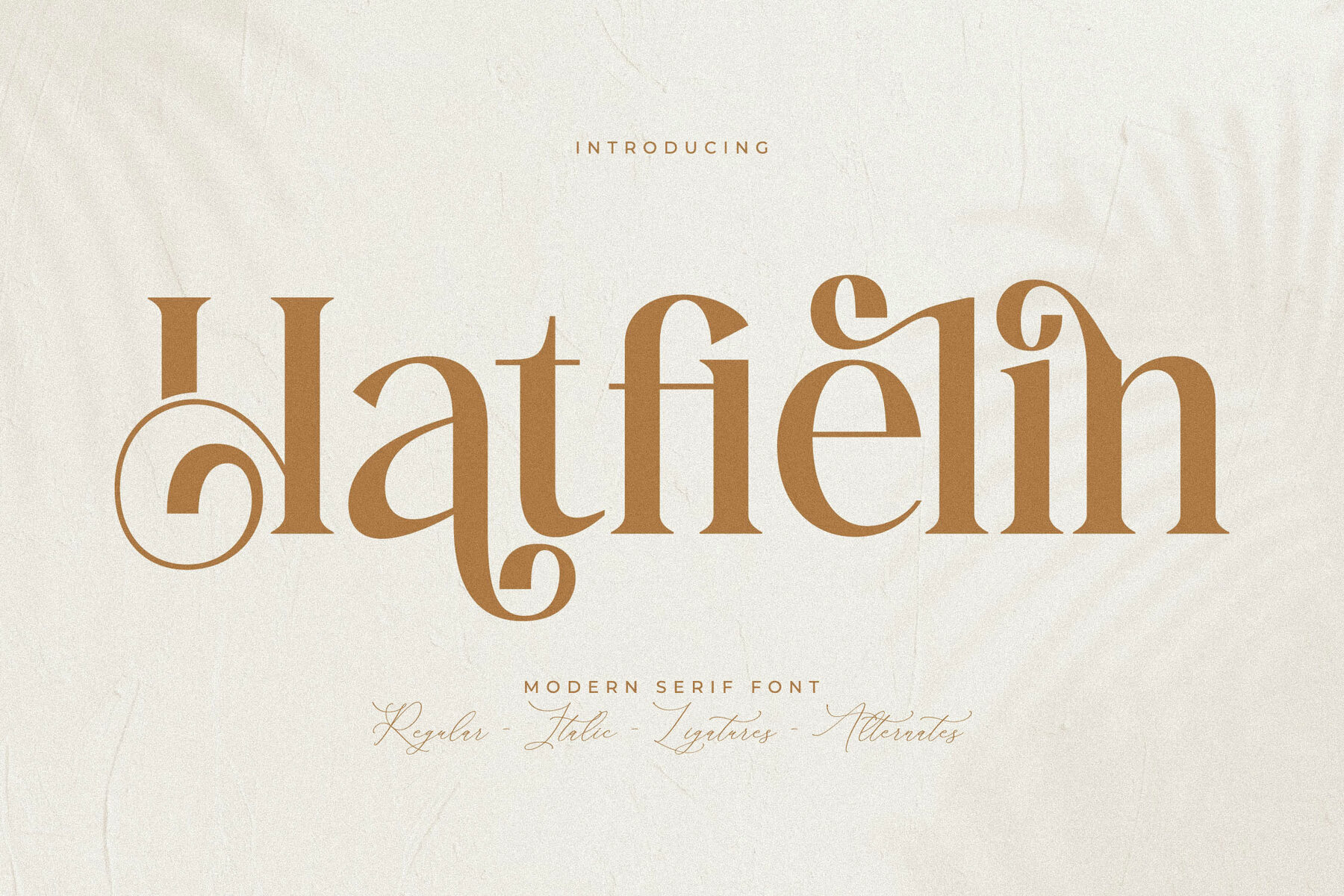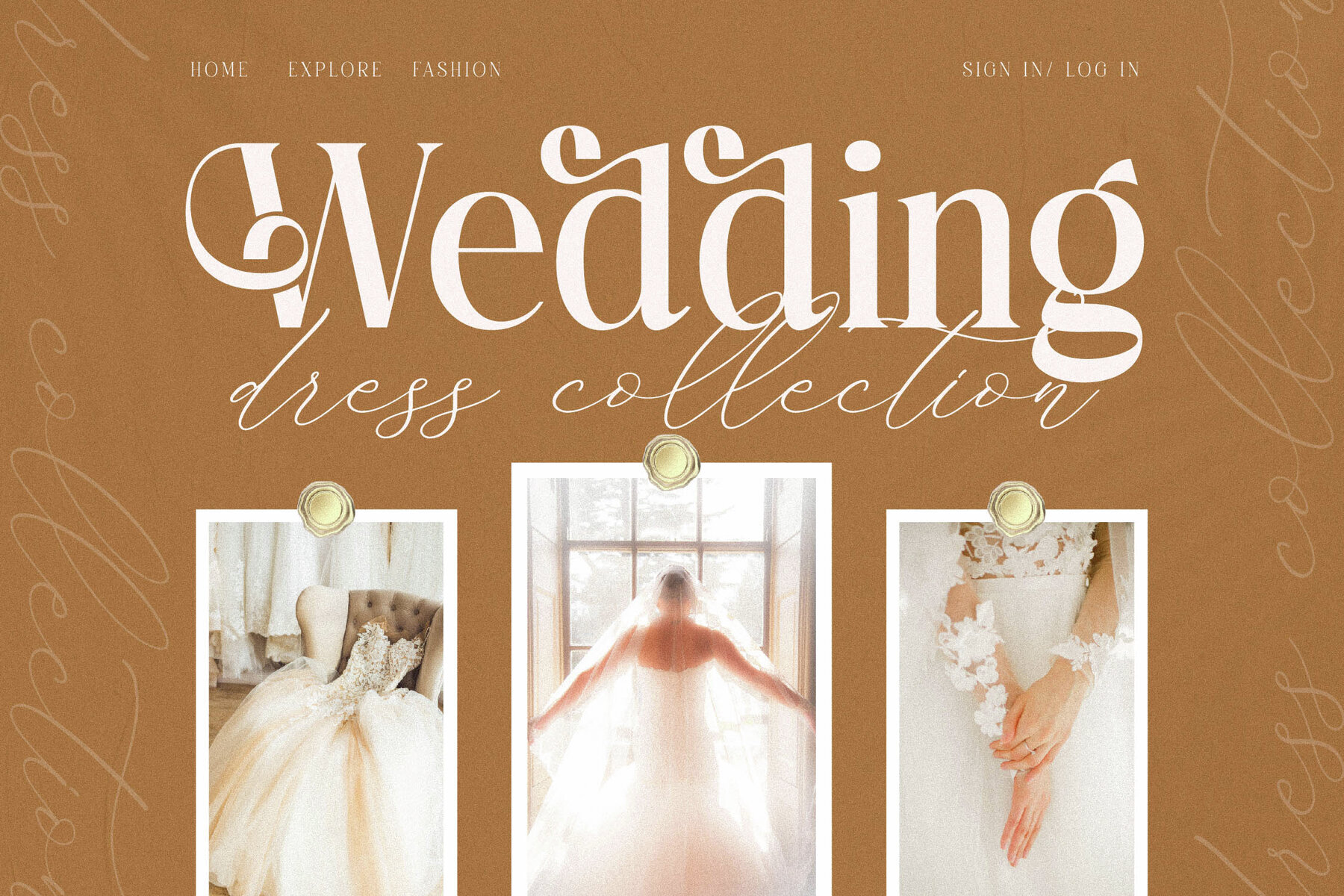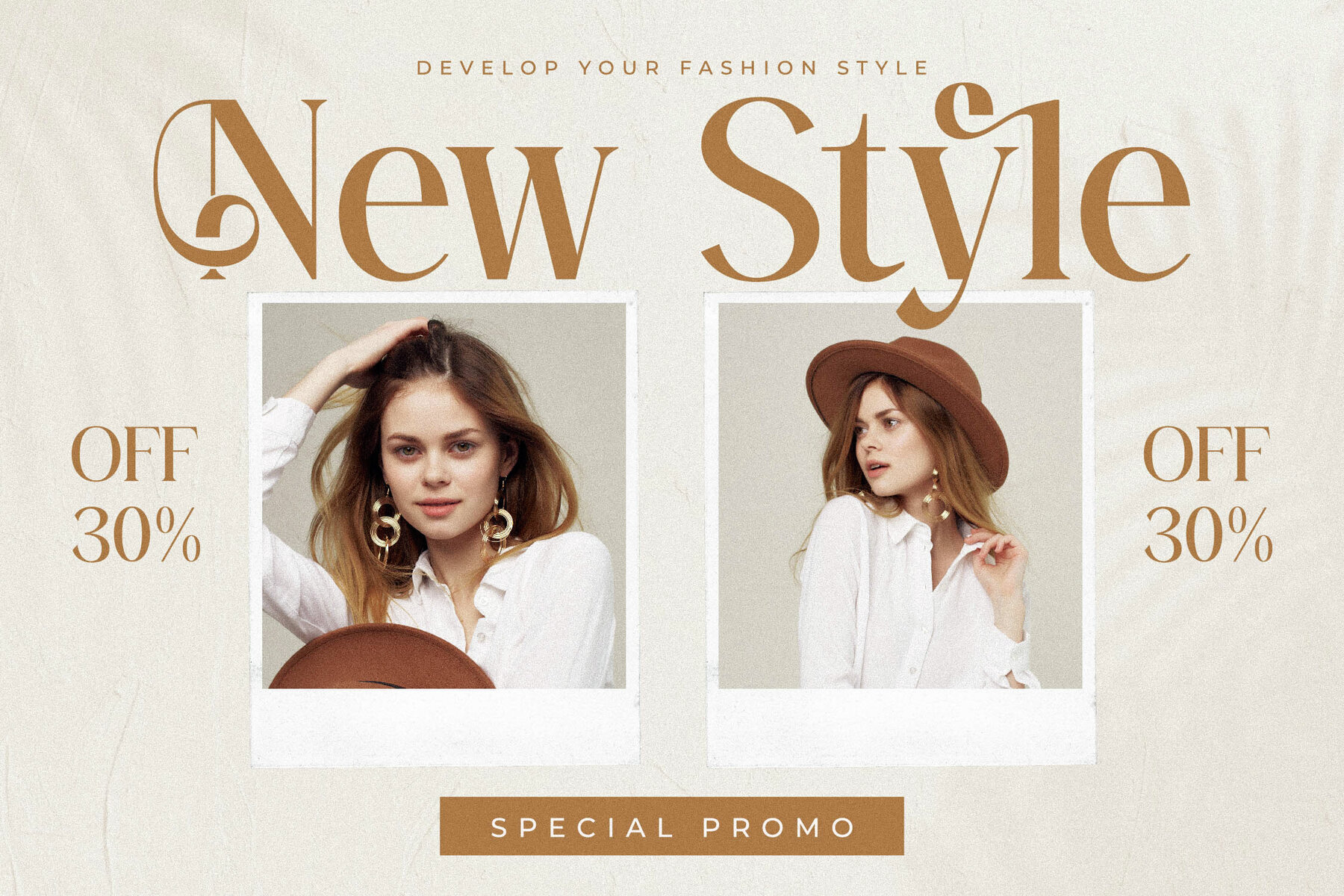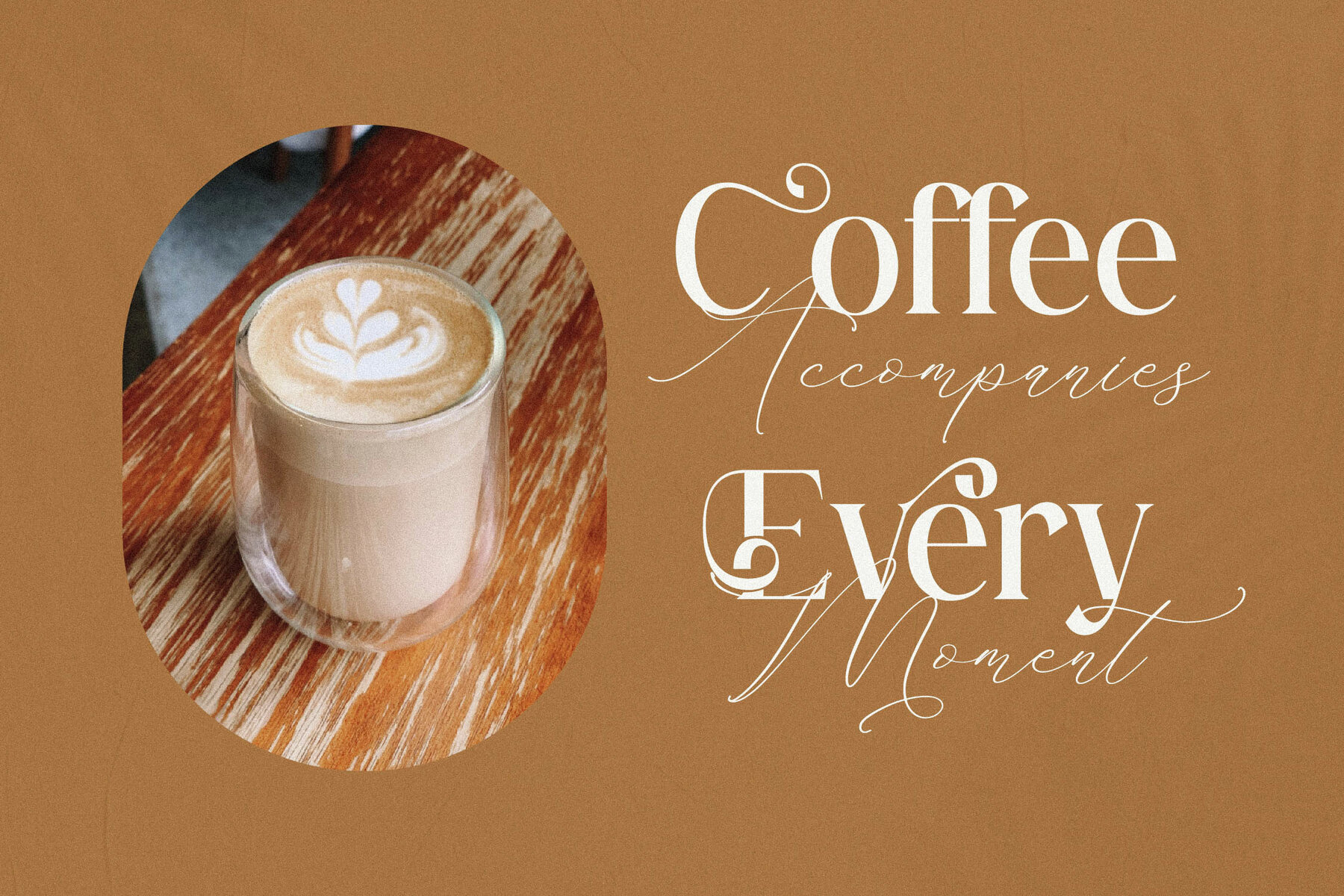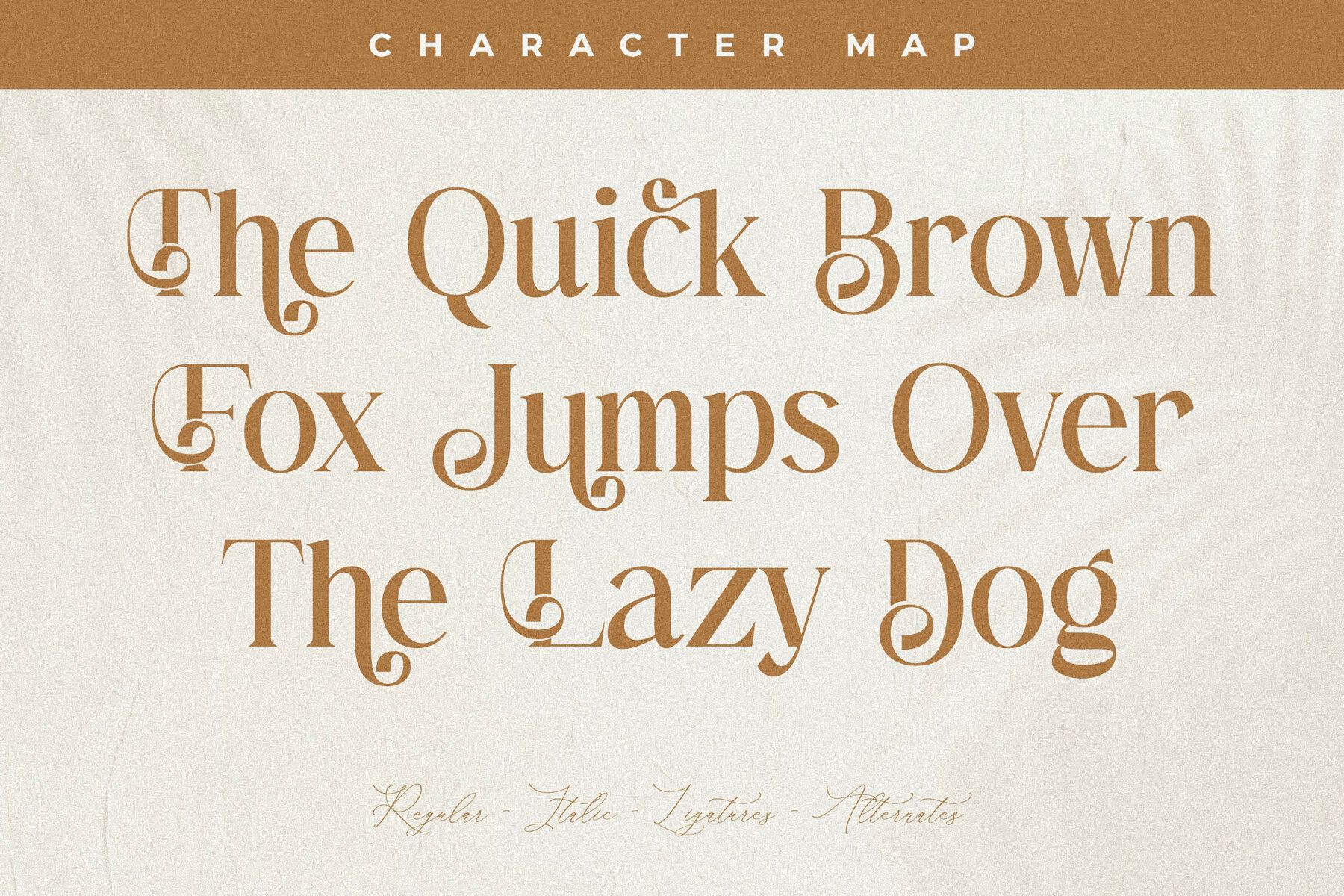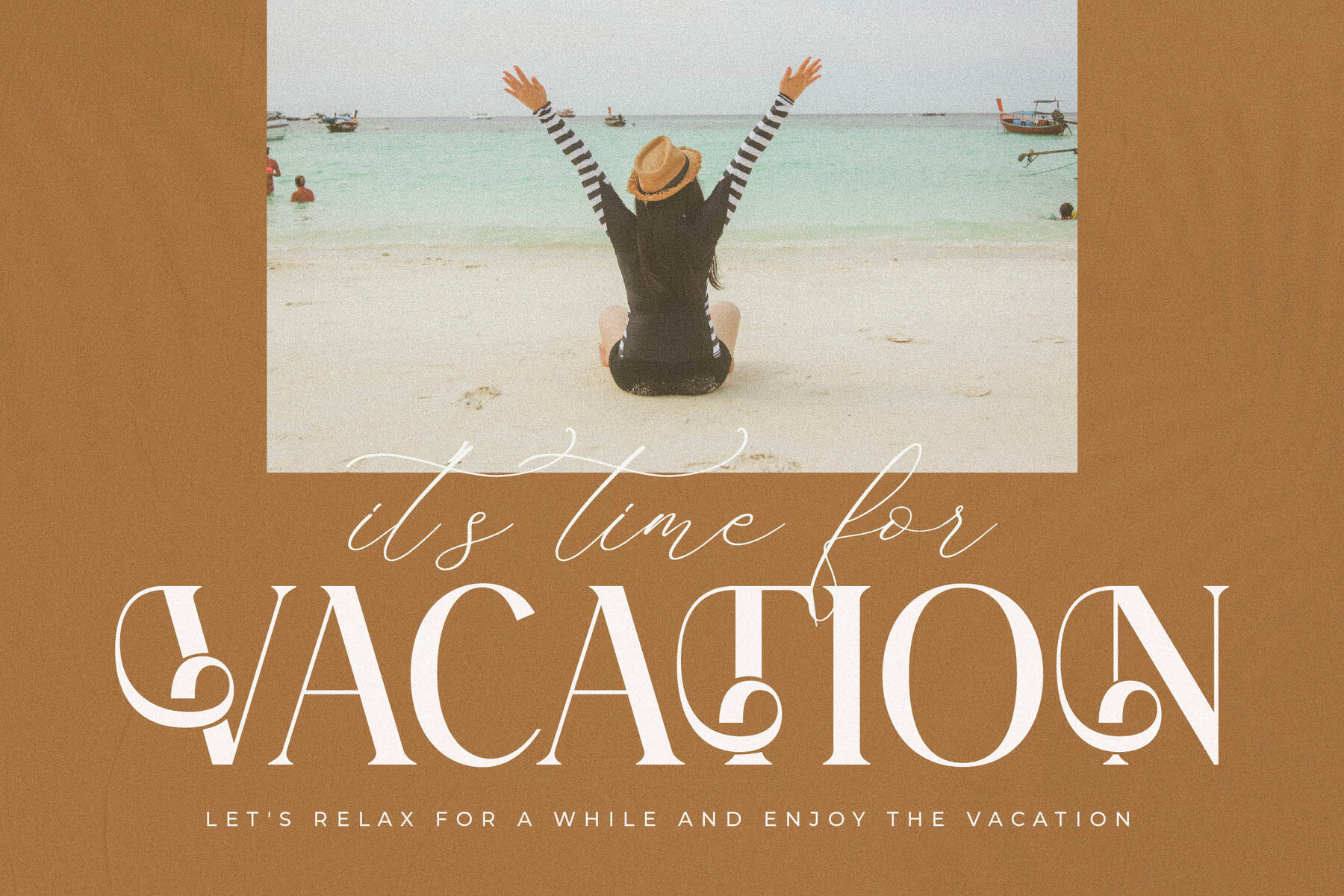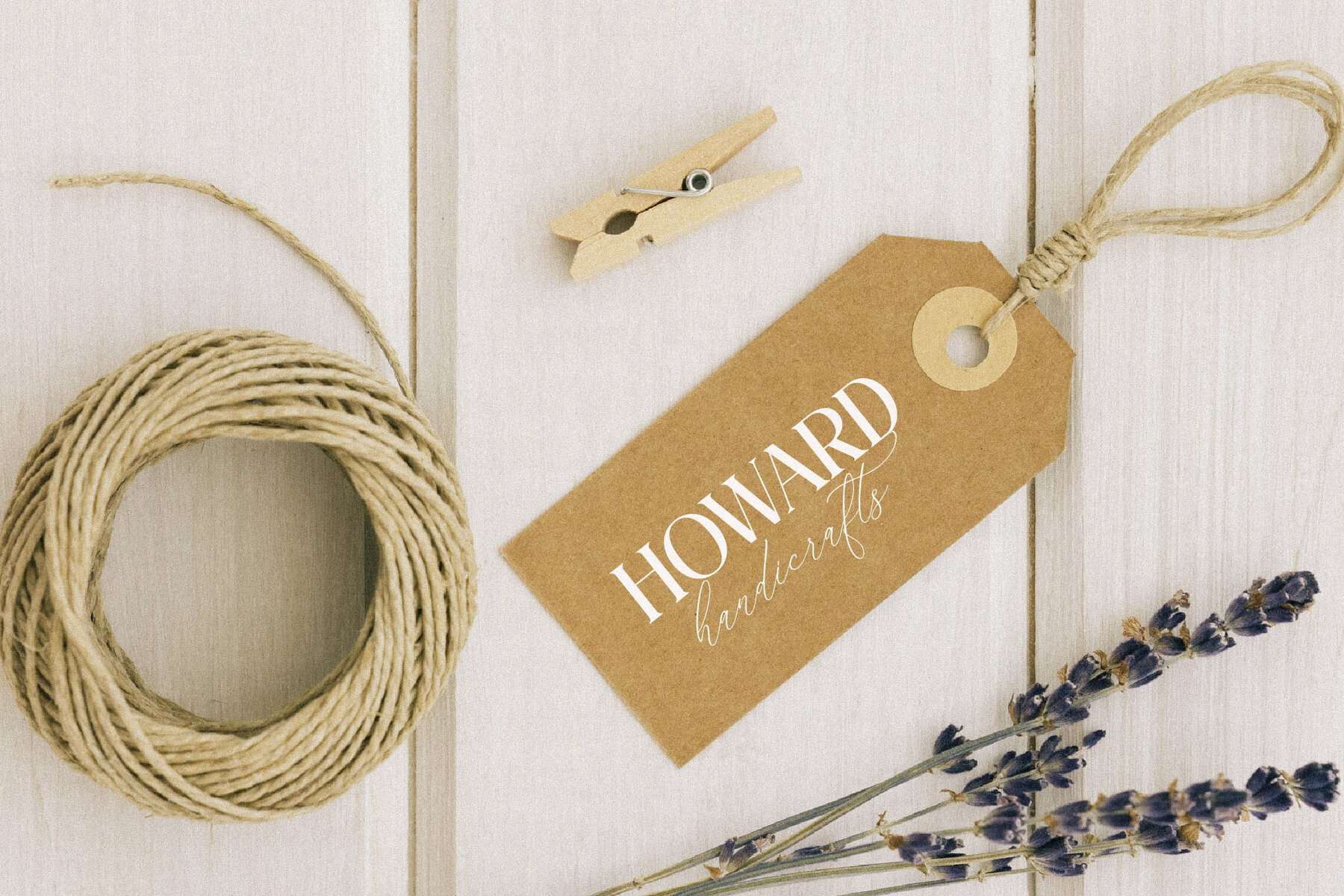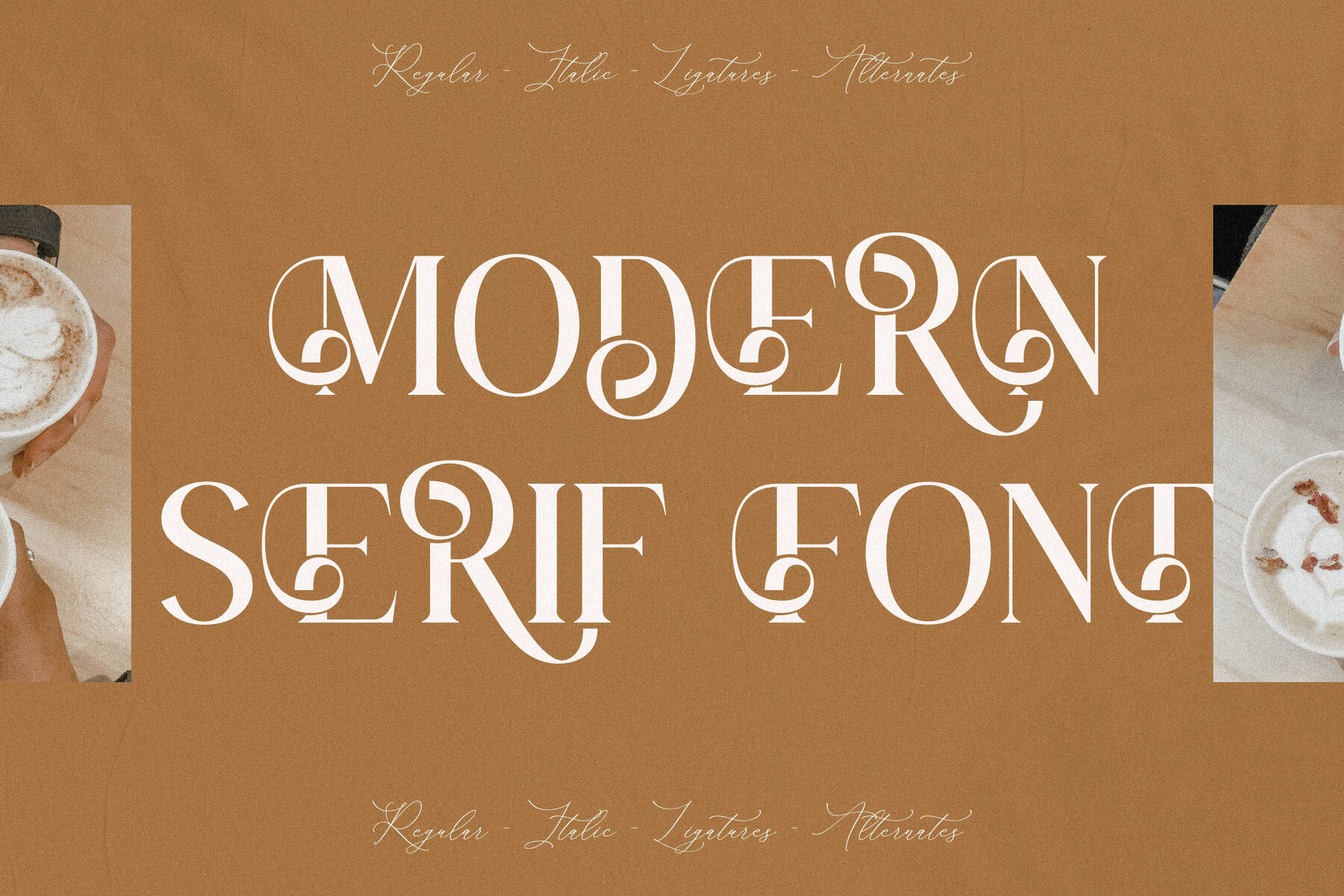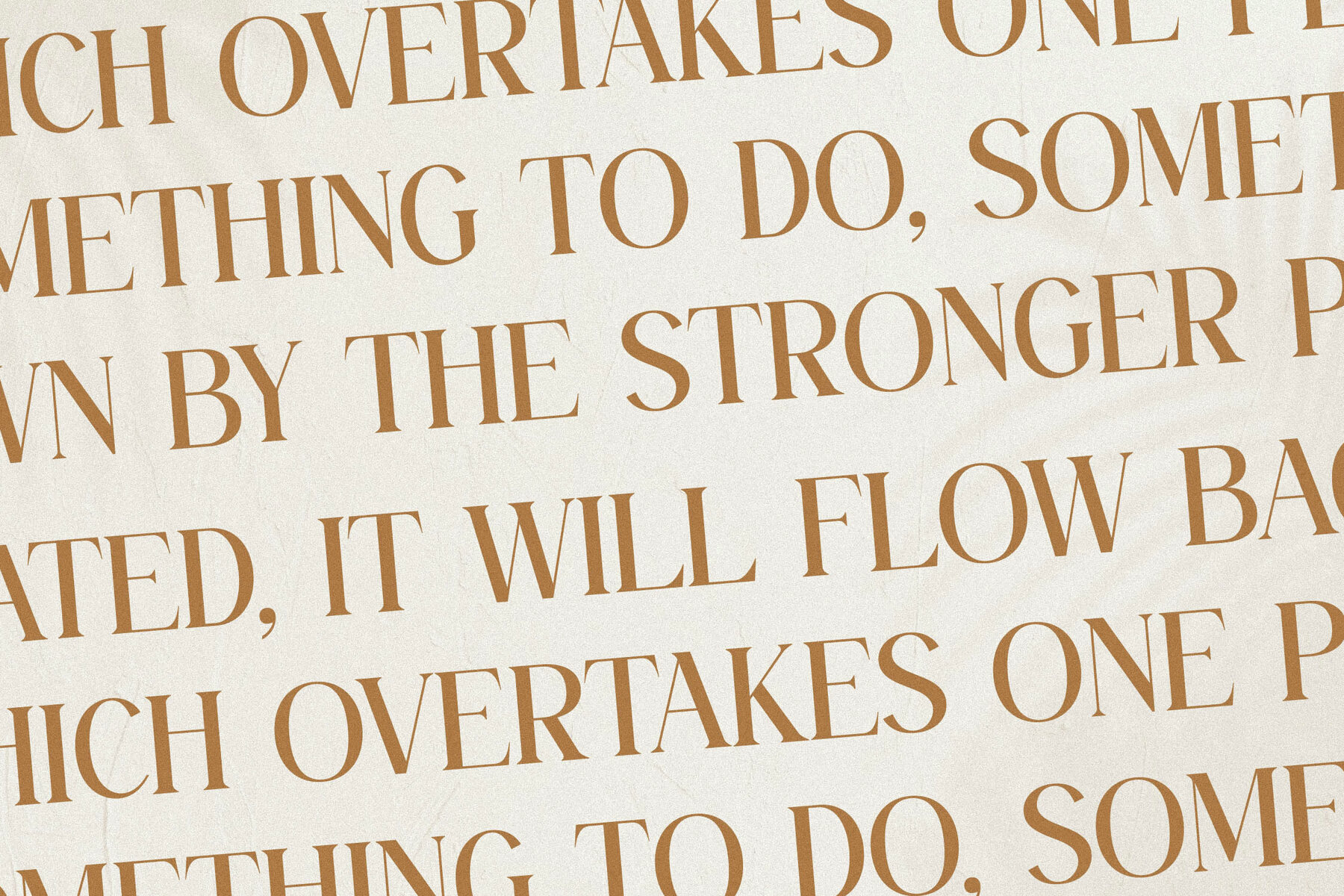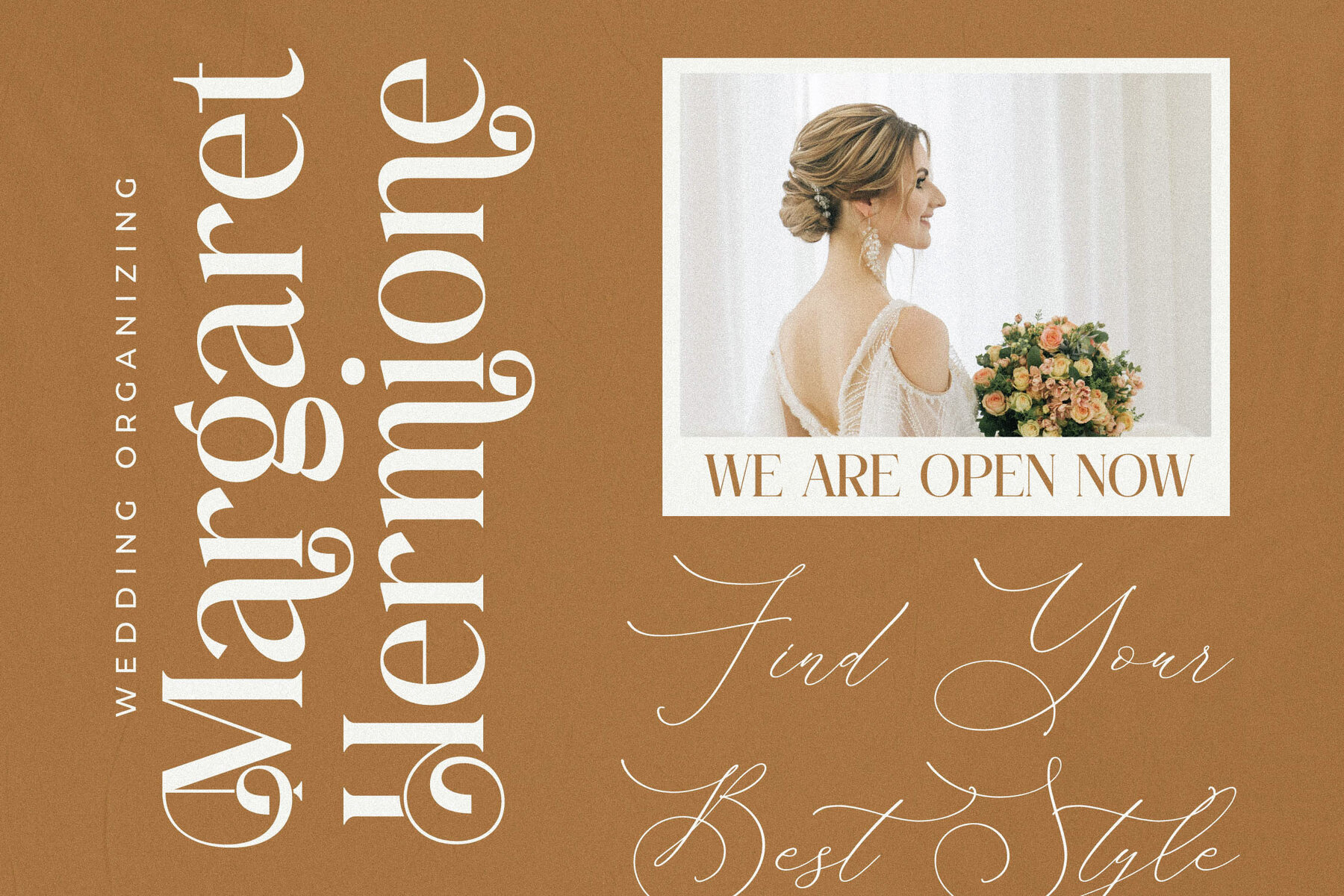
Hatfielin Font
Experience the elegance of Hatfielin, a serif typeface that marries classic and modern aesthetics to deliver a unique style. With its bold yet sophisticated design, it is the ideal choice for luxury logos, book and movie titles, fashion brands, magazines, clothing lines, and more.Hatfielin Typeface